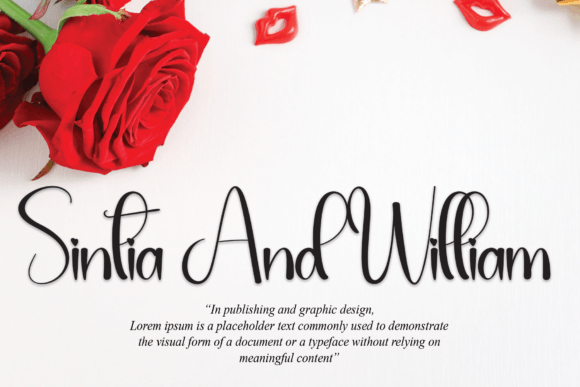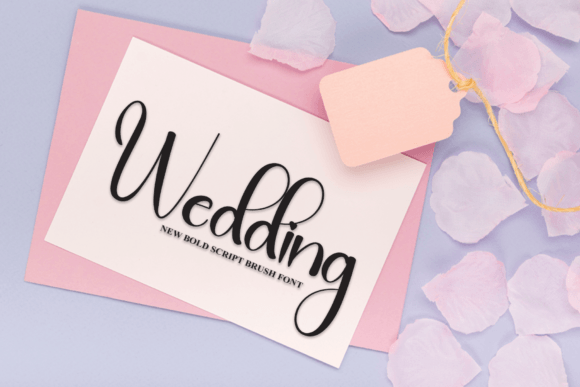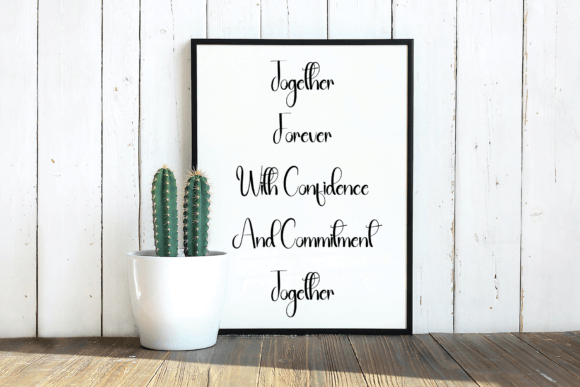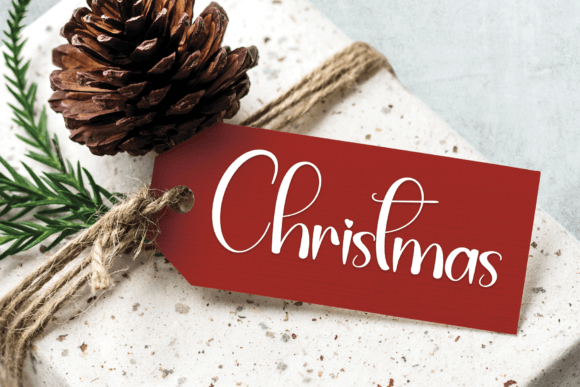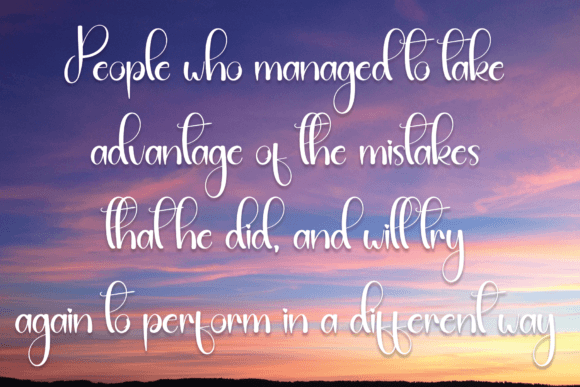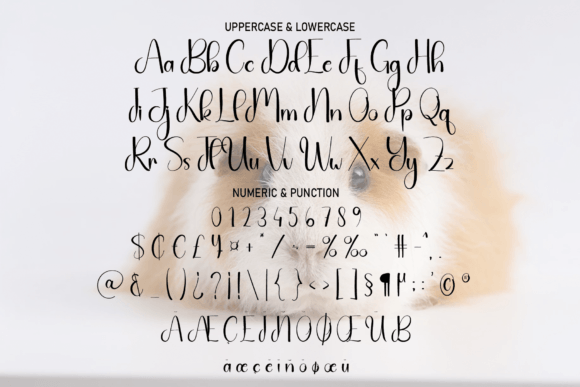
Introducing Amster Night Font: The Perfect Addition to Your Design Arsenal
Are you a designer or crafter looking for a unique and stylish font to elevate your projects? Look no further than Amster Night Font, the latest addition to the world of typography. This stunning font is perfect for a wide range of applications, from wall displays and wedding invitations to social media post logos, advertisements, product packaging, and more.
What Makes Amster Night Font So Special?
Amster Night Font is a handwriting-style font that exudes elegance and sophistication. Its unique blend of modern and classic elements makes it perfect for designers and crafters who want to add a touch of personality to their work. The font’s flowing lines and delicate curves give it a whimsical feel that’s sure to capture the attention of your audience.
One of the best things about Amster Night Font is its versatility. This font can be used for a wide range of projects, including:
- Wall displays: Add a touch of elegance to your wall art with Amster Night Font.
- Wedding invitations: Make your wedding invitations truly special with this beautiful font.
- Social media post logos: Elevate your social media presence with a custom logo featuring Amster Night Font.
- Advertisements: Grab the attention of your target audience with eye-catching ads featuring this stunning font.
- Product packaging: Add a touch of personality to your product packaging with Amster Night Font.
- Product designs: Create unique and stylish product designs that stand out from the crowd.
- Labels: Use Amster Night Font to create custom labels that add a touch of elegance to your products.
- Photography: Add a watermark featuring Amster Night Font to protect your photos and add a touch of style.
- Invitations: Create custom invitations for any occasion, from birthdays to graduations.
- Stationery: Elevate your stationery with Amster Night Font, perfect for letters, cards, and more.
Why Choose Amster Night Font?
So why choose Amster Night Font over other fonts on the market? Here are just a few reasons:
- Unique and stylish: Amster Night Font is a one-of-a-kind font that will set your designs apart from the crowd.
- Elegant and sophisticated: This font exudes elegance and sophistication, making it perfect for high-end designs.
- Versatile: Amster Night Font can be used for a wide range of projects, from digital designs to print materials.
Tips for Using Amster Night Font
Here are a few tips for getting the most out of Amster Night Font:
- Experiment with different colors: Amster Night Font looks great in a variety of colors, from bold and bright to soft and pastel.
- Pair with other fonts: Try pairing Amster Night Font with other fonts to create a unique and stylish design.
- Use for headlines and titles: Amster Night Font is perfect for headlines and titles, adding a touch of elegance and sophistication to your designs.
- Don’t be afraid to get creative: Amster Night Font is a versatile font that can be used in a wide range of creative ways.
Amster Night Font is a stunning addition to any design arsenal. Its unique blend of modern and classic elements makes it perfect for designers and crafters who want to add a touch of personality to their work. With its versatility, elegance, and sophistication, Amster Night Font is sure to become a go-to font for designers and crafters around the world.